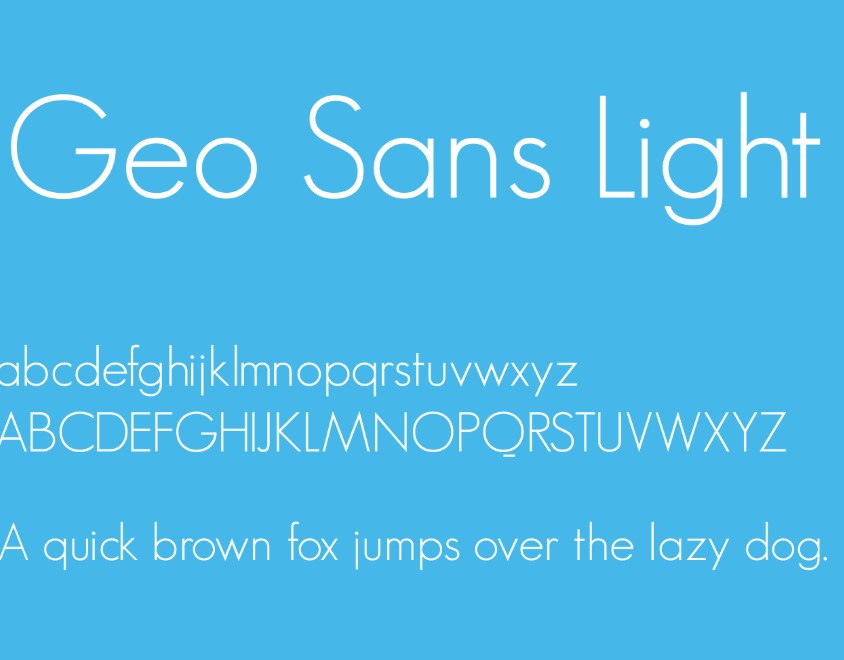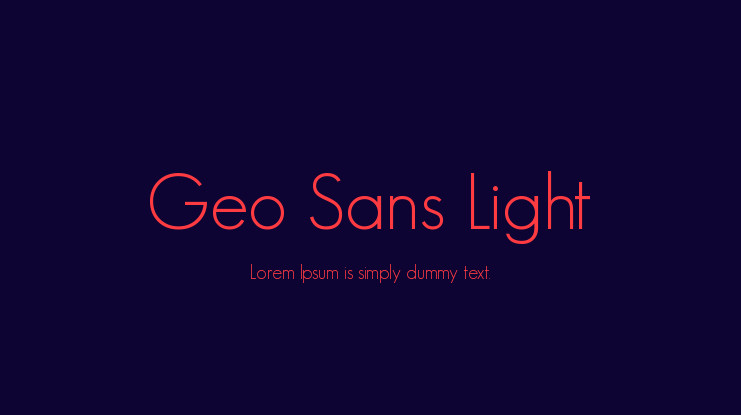
Geo Sans Light Font is widely known for its formidable and italic function. This is also applied in adobe. This typeface has a second call called Gotham font. You’ll be inspired via the manner of the useful beneficial resource of loads of those fonts.
Preserve in mind in spite of the fact that that locating the excellent font is best really a place to start. Much like american handmade typeface, this famous font ideally fitted for photo layout packages beginning from the editorial, corporation, internet, interplay to product format. Geo Sans Light Font Free Furthermore to the regular styles, the trade versions will turn the font proper into a brilliant partner for modern-day-day, technical, and present-day impressions further to immoderate precise, expensive, and timeless. Consists of a whole set of characters that helps you to cope with numerous languages in its four versions.
Consequently, refrigerator deluxe font can be visible as a right away partner to the mobile telephone font’s own family. Download It makes a splendid font for brand and layout. It changed into designed primarily based totally on the primetime font own family, with equal thoughts in thoughts: geometry, simplicity, and neutrality. Most people have a look at efficiently making use of them in petite sizes without dropping legibility.
The vogue font makes sure smooth operation even on low-first rate papers.